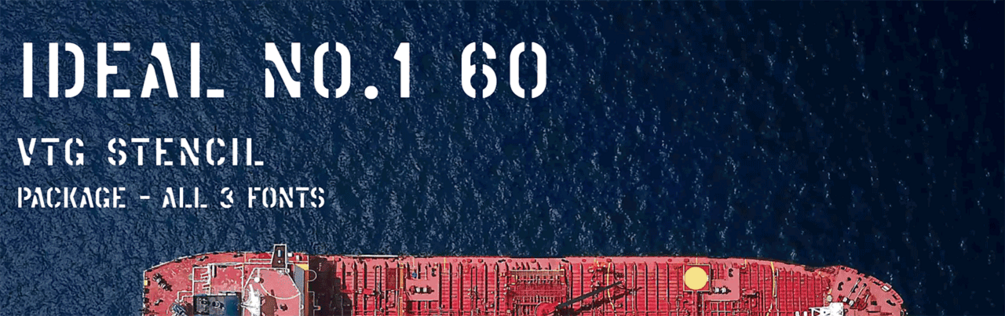
Vtg Stencil Ideal No.1 60 - Package, all 3 Fonts
Vtg Stencil Ideal No.1 60 - Font Package
The "60" version is based on the later Ideal machines of the mid-1960s.
(Regular an Mono font styles support Cyrillic letters too.)